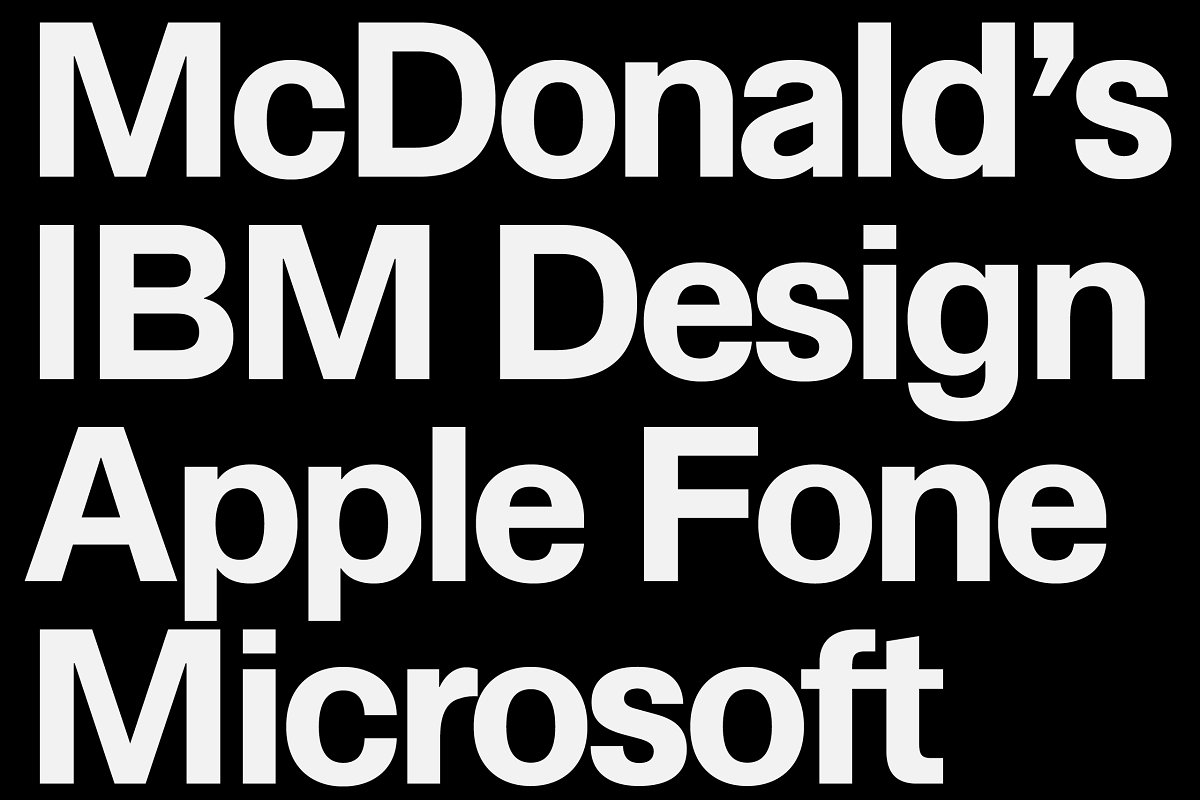
About the Zwizz Typeface Font
Zwizz™ Typeface is a Radnika-derived sans serif with horizontal and vertical termination cuts similar to Helvetica, The glyphs compact design makes it great for tight typographic compositions, Includes: Light, Regular, Medium, SemiBold, Bold, ExtraBold, Black weightsDesktop fonts: ttf, otf